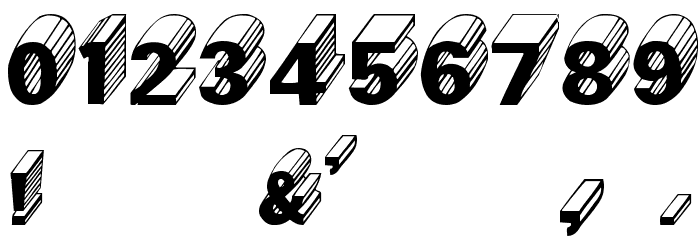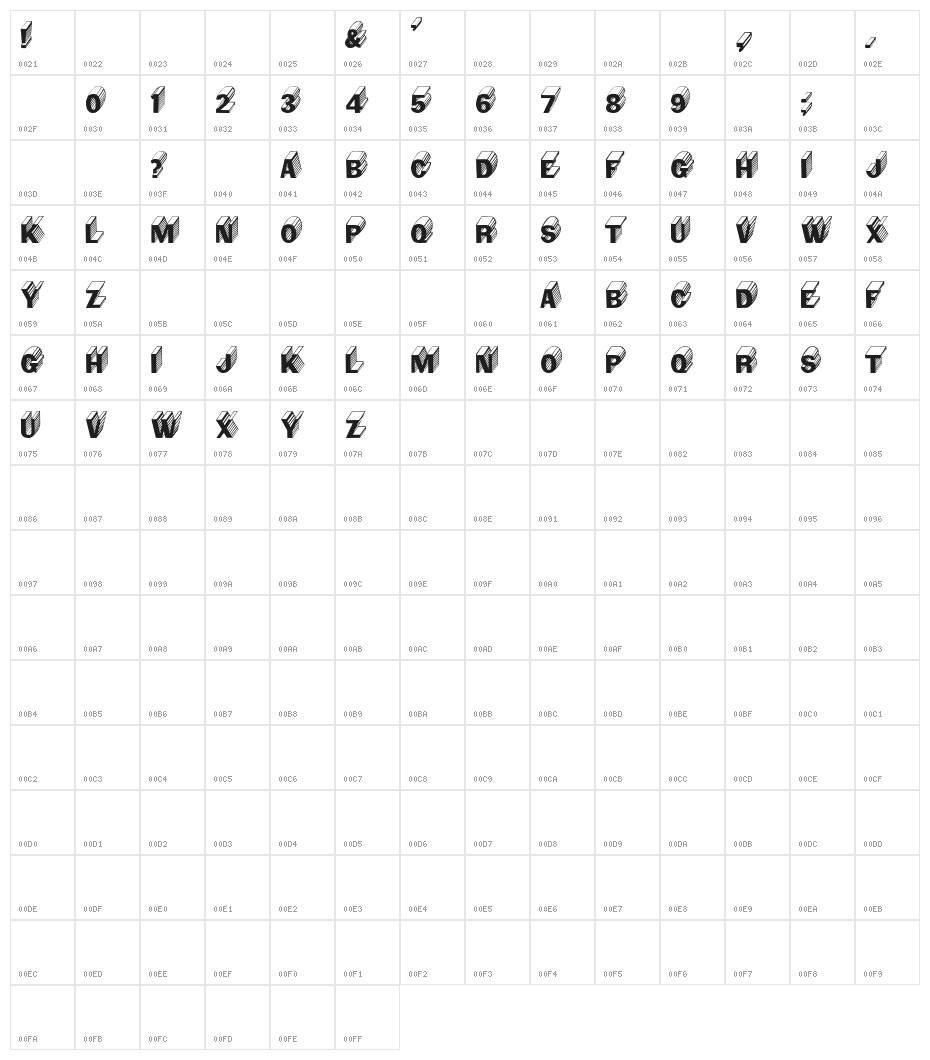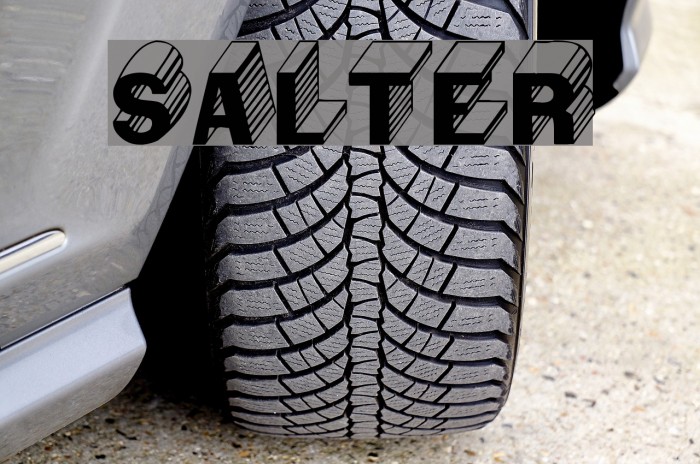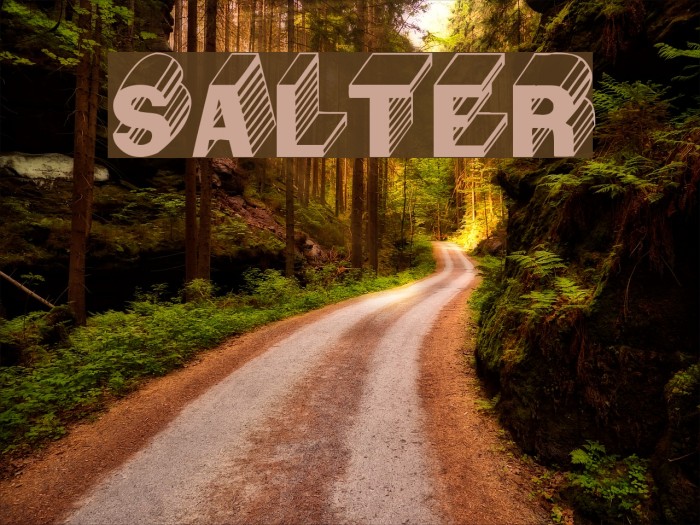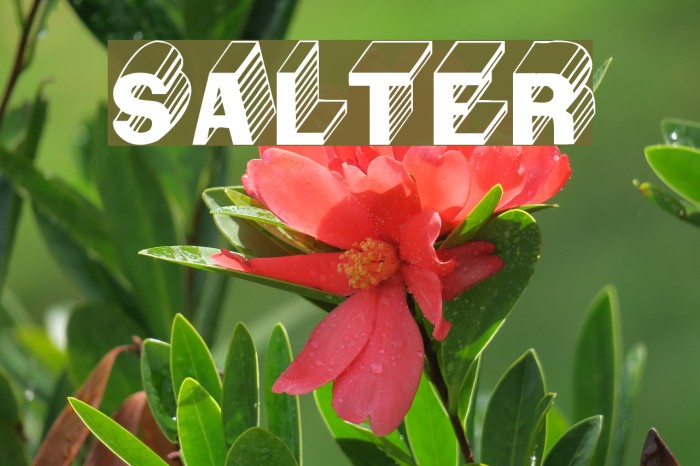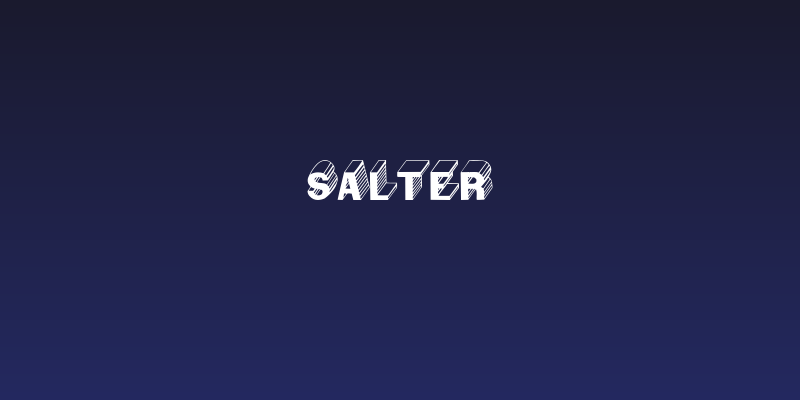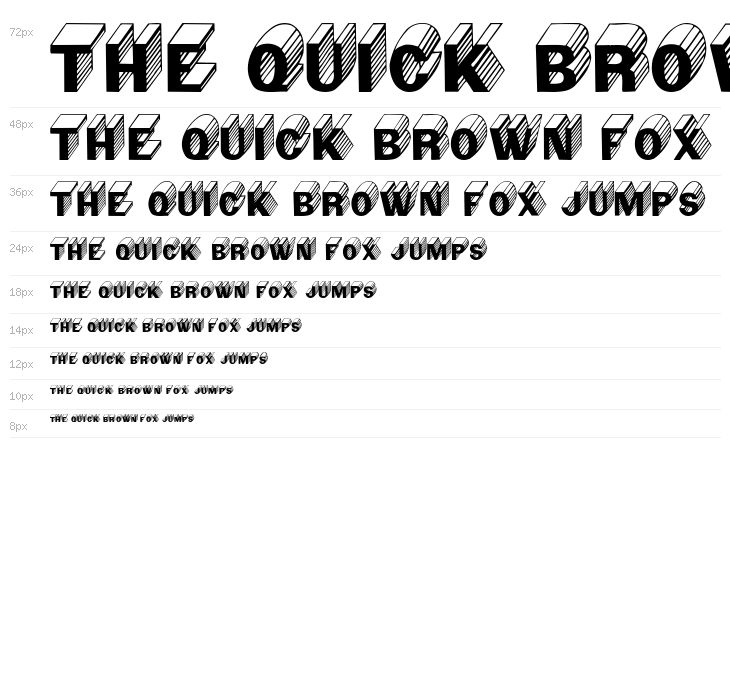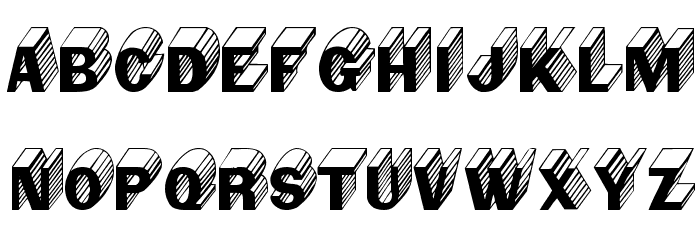
Salter Font
Salter Description
This font features a bold, three-dimensional style with a distinctive striped pattern that gives it a dynamic and eye-catching appearance. The letters are uppercase and have a strong, geometric structure, making them stand out prominently. The font's design includes a shadow effect that enhances its depth and visual impact. The numerals and special characters follow the same bold and structured style, ensuring consistency across all elements. This font is ideal for projects that require a striking and modern look, such as posters, headlines, and branding materials.
| Proposed Projects | Ideal for posters, headlines, branding, and any design needing a bold, modern touch. |